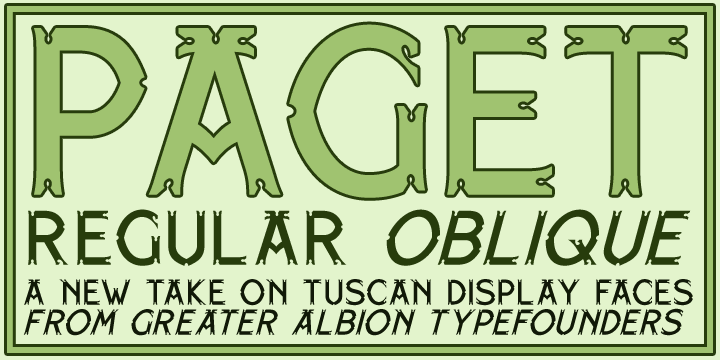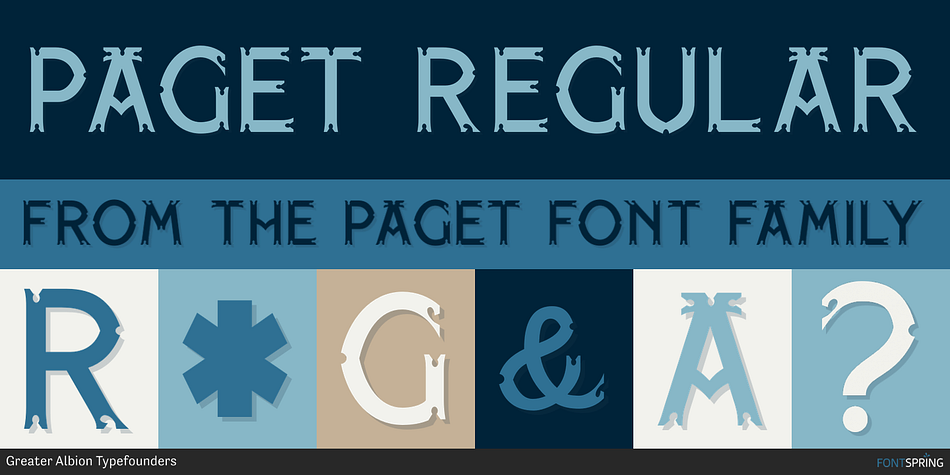
PAGET REGULAR
Paget is a arts and crafts font family. This typeface has two styles and was published by Greater Albion Typefounders.
aget is a modern exploration of Tuscan design.
aget is a modern exploration of Tuscan design.  Here you’ll find simple geometric outlines with an ‘Arts and Craft’ charm about them.  Paget is beautifully clear and easy to read, but offers a distinctive charm that conventional sans serif and serif faces don’t.  Paget is offered in regular and oblique forms and is an ideal way to merge tradition and all that is new and fresh in your designs.